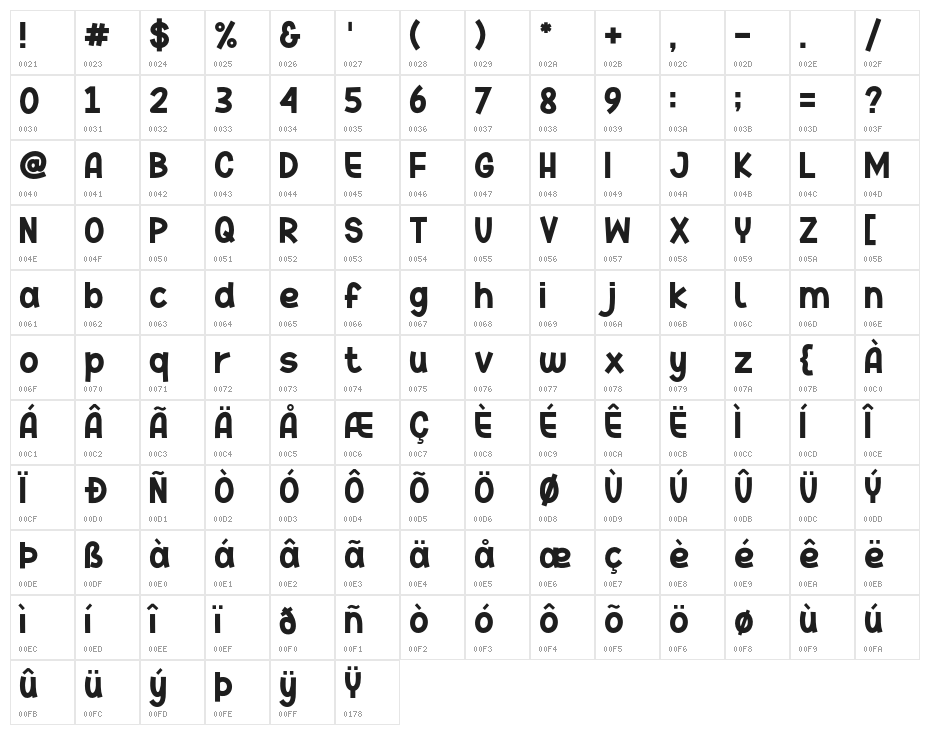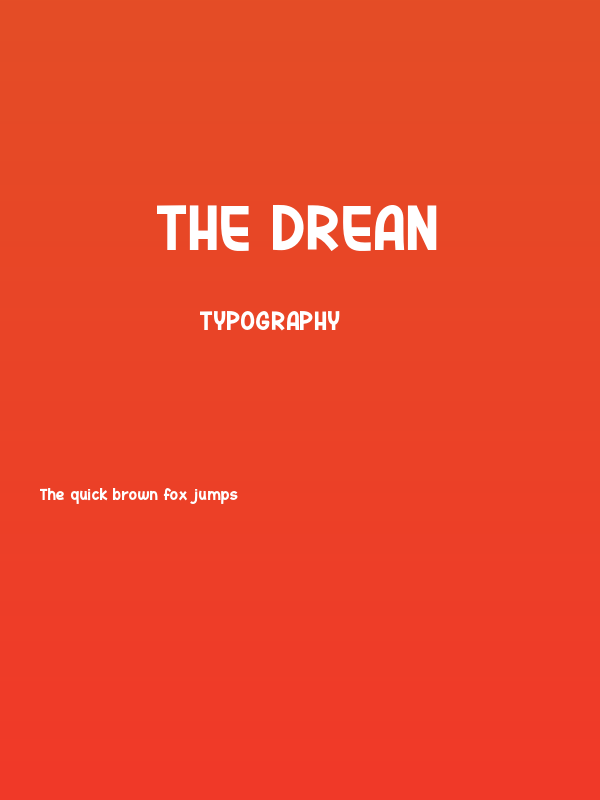
The Drean Font
The Drean Description
This font features a playful and bold style with rounded edges and a slightly whimsical appearance. The uppercase letters are uniform in height and width, creating a cohesive look, while the lowercase letters maintain a consistent style with a touch of individuality in their curves. The numerals are bold and clear, making them easily readable. Special characters are designed to match the overall playful aesthetic, with smooth curves and a slightly exaggerated form. This font is ideal for projects that require a fun and engaging look, such as children's books, playful branding, or creative posters.
Overall StylePlayful, Whimsical
Proposed ProjectsChildren's books, playful branding, creative posters, fun invitations.